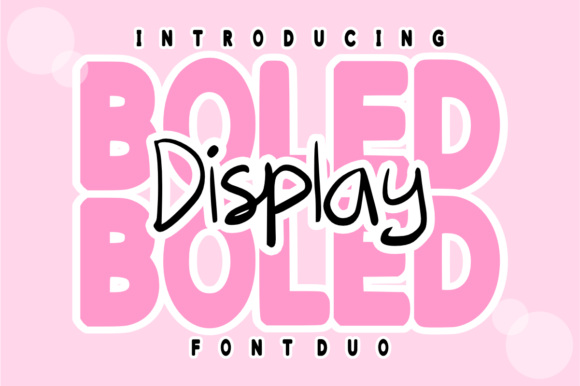
Get Ready to Add a Pop of Personality to Your Designs
You know that moment when you’re working on a project and you just can’t seem to find the right font to bring it all together? The perfect combination of fun and personality can make all the difference in making your design truly shine. That’s where the Boled Display Duo Font comes in – a vibrant and energetic font duo designed to make your projects “pop”!
Combining a bold, bubbly display font with a chic, natural handwriting script, this pairing offers the perfect balance of fun and personality. Whether you’re working on social media stickers, nursery decor, or upbeat merchandise, the Boled Display Duo Font is the perfect solution for creators working in the “kawaii” or “soft-girl” aesthetic. Its friendly and youthful vibe instantly injects a sense of joy into any project, making it a valuable addition to any designer’s toolkit.
Boled Display Duo Font Key Features
- Font Family: A unique display font designed to convey a sense of boldness and modernity, perfect for headings and titles.
- Character Set: Includes a comprehensive set of characters, including uppercase and lowercase letters, numerals, and punctuation marks.
- Resolution: Designed to be highly legible at high resolutions, making it ideal for use in digital design applications, including web and mobile interfaces.
- Unique Characteristics: Boled Display Duo Font features a distinctive, dual-axis design that creates a sense of depth and visual interest, setting it apart from more traditional display fonts.
Boled Display Duo Font Review
I’ve had the chance to work with the Boled Display Duo Font, and I must say it’s a great addition to any designer’s toolkit. ✨ Here are some of its strengths:
- Unique Character**: Boled Display Duo has a distinct, bold appearance that’s sure to grab attention. Its large x-height and chunky strokes make it perfect for headlines and titles.
- High Legibility**: Despite its bold appearance, the font is surprisingly easy to read, even at smaller sizes. This makes it a great choice for body text or other areas where readability is crucial.
Of course, no font is perfect, and Boled Display Duo has its limitations. ⚠️ Here are a few things to consider:
- Limited Character Set**: While the font has a wide range of glyphs, it’s not as extensive as some other fonts. This might be a concern for designers working with non-English languages or complex scripts.
- Not Ideal for Body Text**: While Boled Display Duo is legible, it’s still a bit too bold for body text. It’s best used for headlines, titles, and other areas where a bold, eye-catching font is desired.
Overall, I think Boled Display Duo is a solid choice for designers looking for a unique, attention-grabbing font. While it has some limitations, its strengths make it a valuable addition to any design project.
Tips for Getting the Most Out of Boled Display Duo Font
Use bold and italic styles to add emphasis to your text.
Combine Boled Display Duo with other fonts to create a visually appealing design.
Headings and titles in presentations, posters, and social media graphics.
Displaying quotes or phrases in a bold and eye-catching way.
Creating a distinctive brand identity or logo.